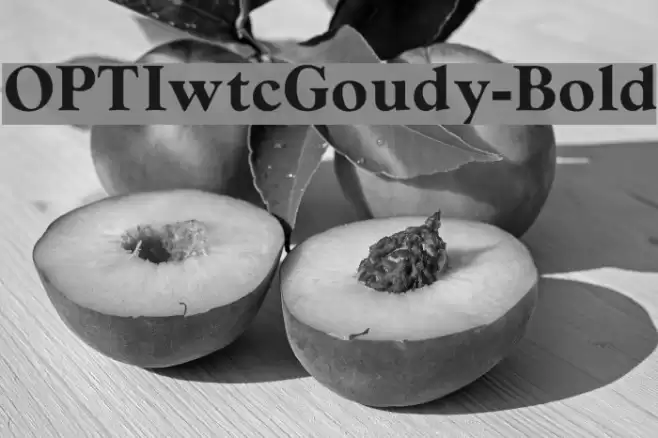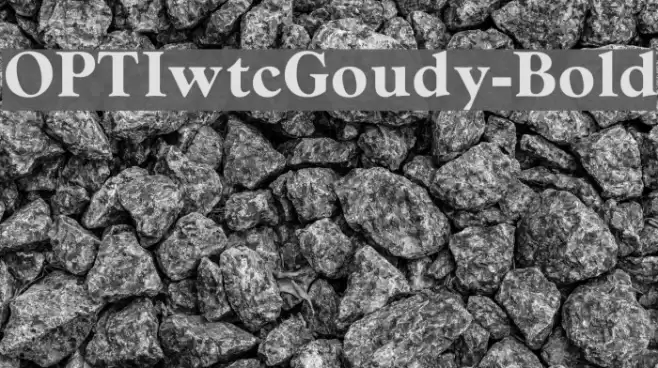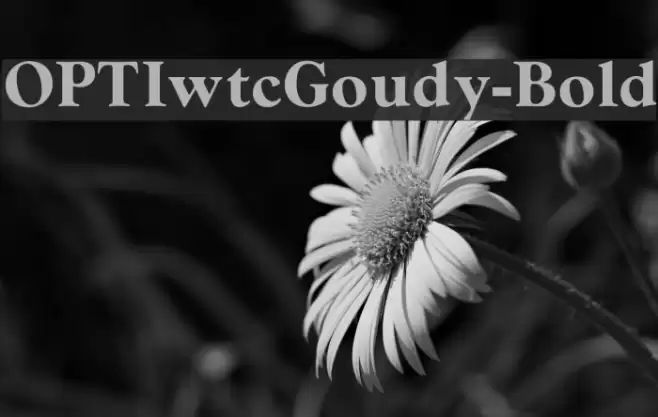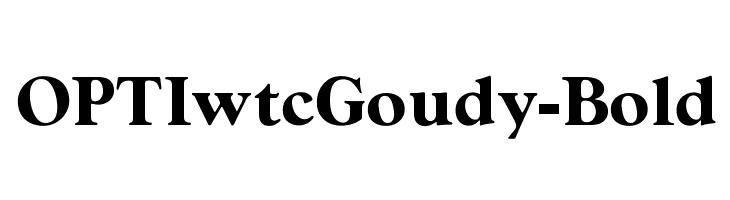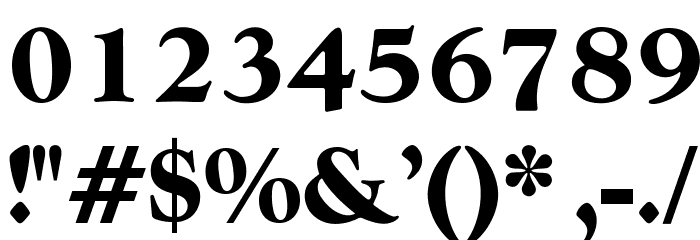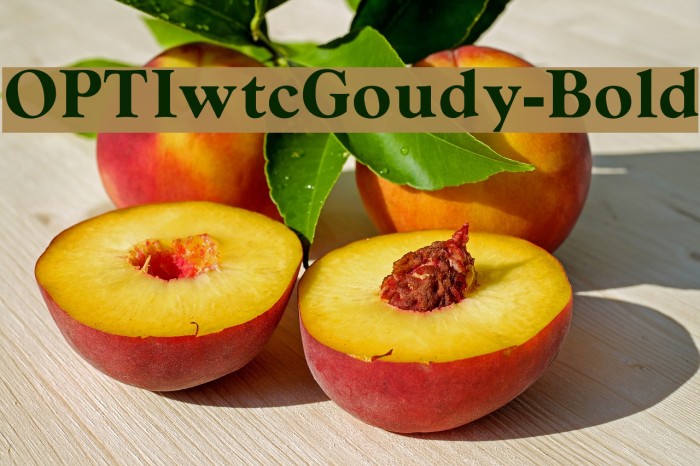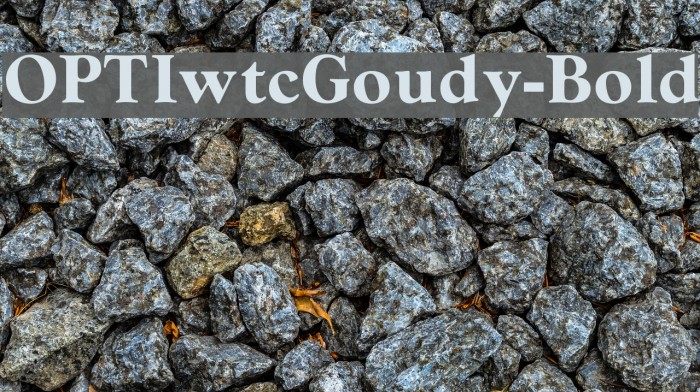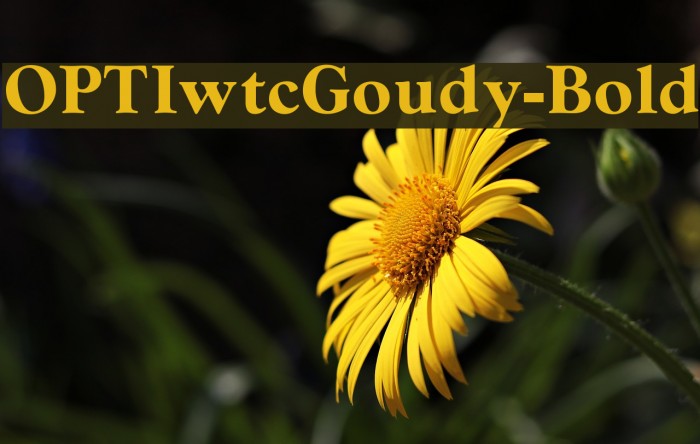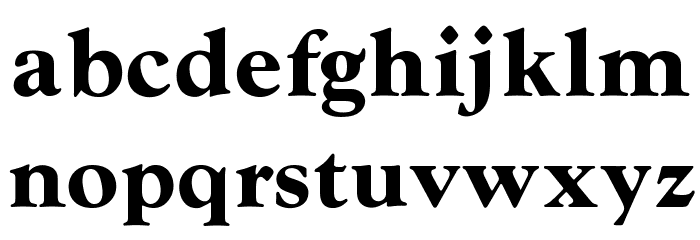
OPTIwtcGoudy-Bold Font
OPTIwtcGoudy-Bold Description
This font exudes a classic and timeless elegance, characterized by its bold and strong serif design. The letters are well-defined with a sturdy structure, featuring pronounced serifs that give it a traditional yet authoritative appearance. The uppercase letters are stately and commanding, while the lowercase letters maintain a harmonious balance, ensuring readability and sophistication. The numerals are clear and distinct, complementing the overall style. Special characters are crafted with the same attention to detail, making them suitable for a variety of formal and professional applications.
A bold, classic serif font with strong, authoritative presence from Uncategorized fonts.
- Proposed Projects: Ideal for book covers, formal invitations, branding materials, and editorial design.
- Overall Style: Classic
- Use Case: Headlines, Logos, Editorial design